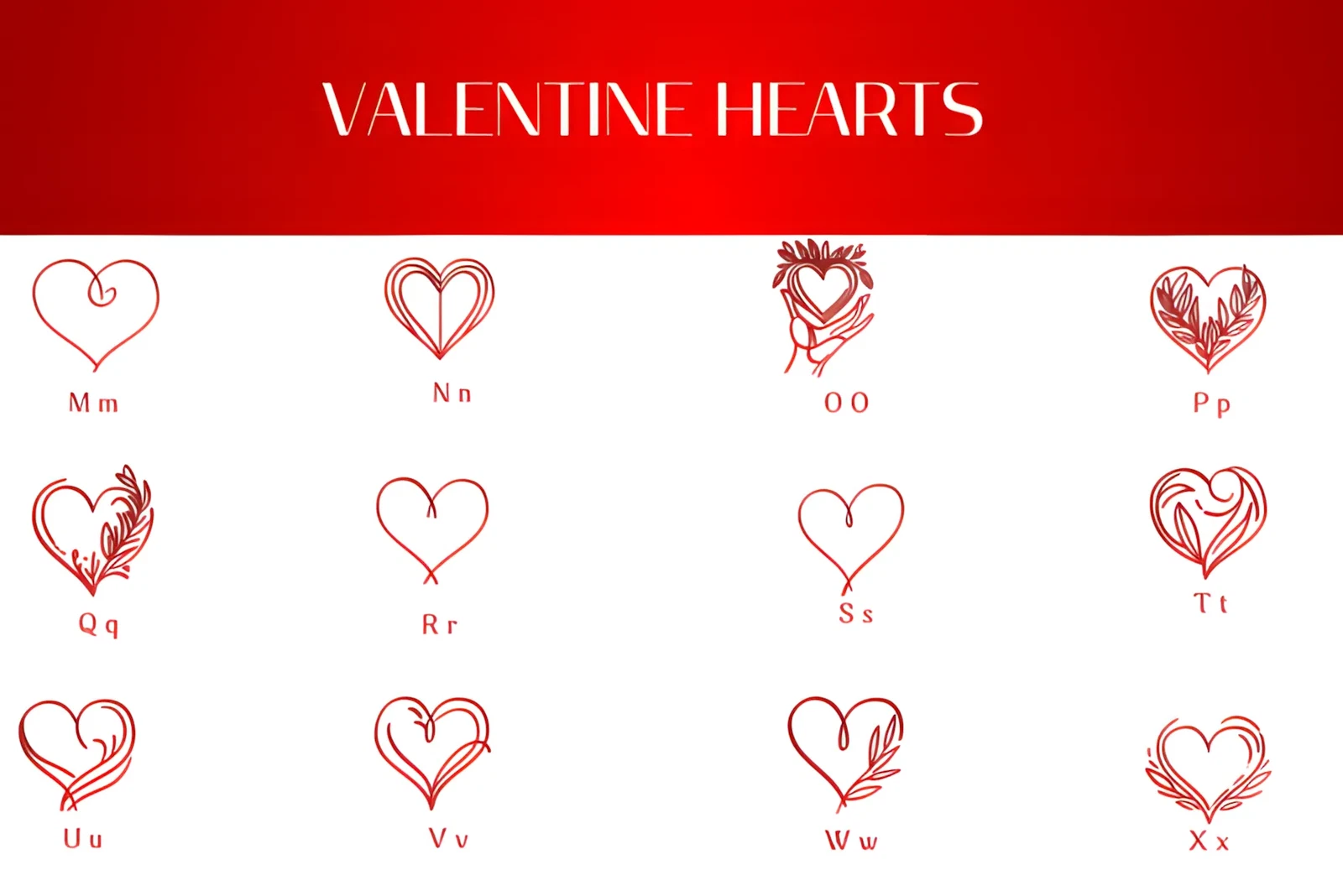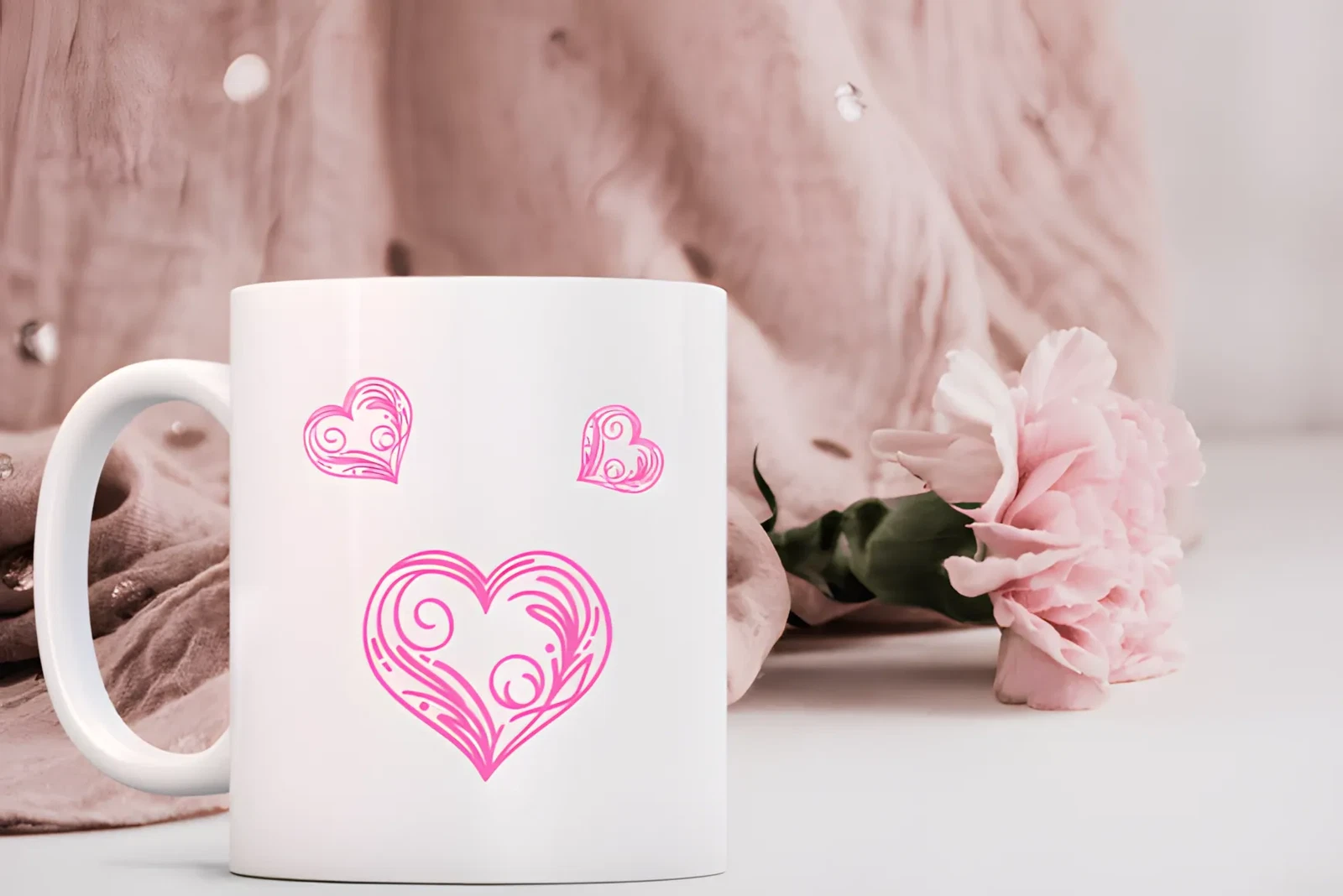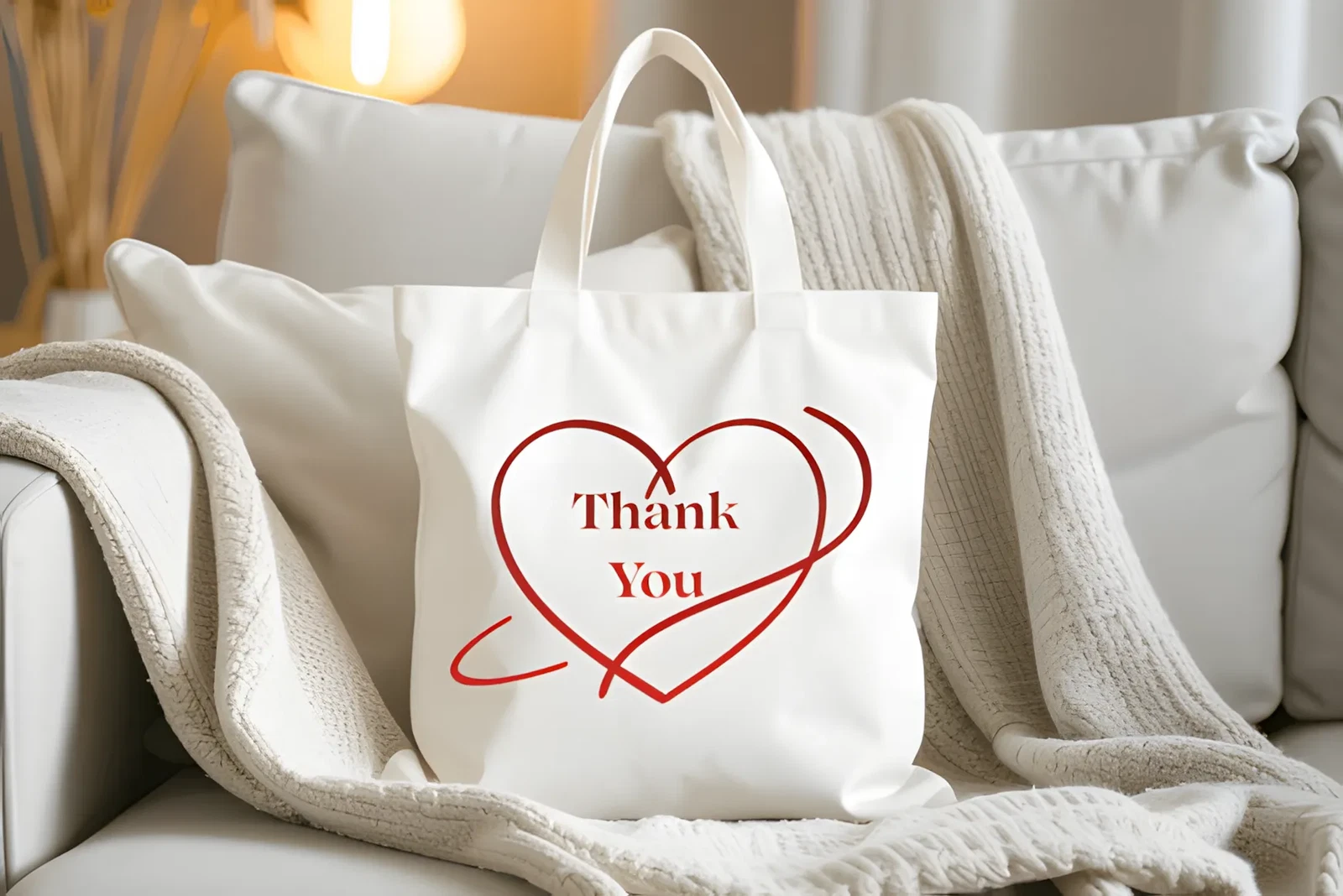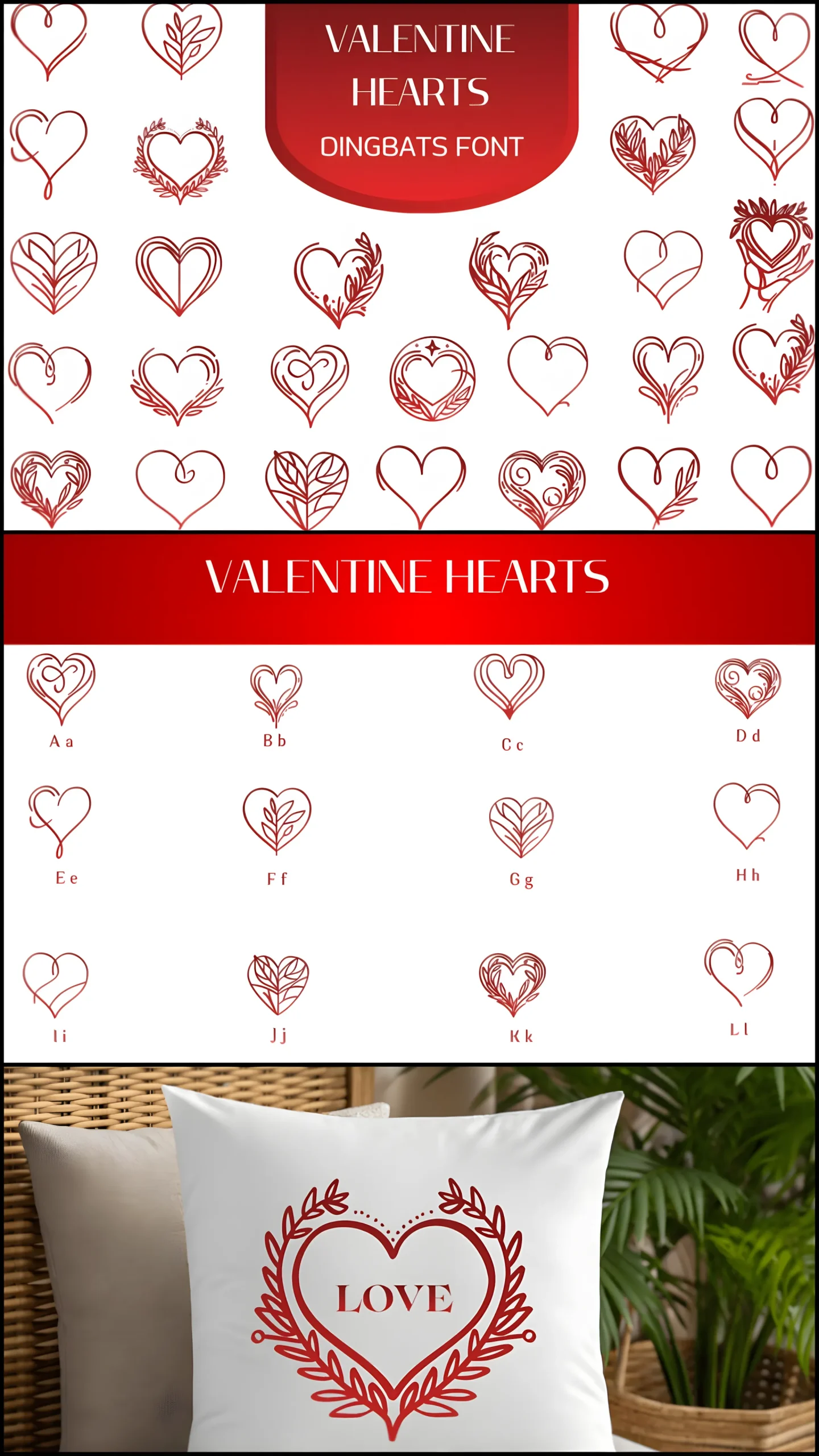
Some fonts are made to communicate with words, while others speak through symbols. Valentine Hearts Font belongs to the second type. This is a decorative dingbats font built entirely around heart illustrations, designed to add warmth, romance, and visual charm to creative projects.
Instead of traditional letters, the font offers a wide collection of heart shapes in different styles. Each glyph works as a small illustration, allowing designers to decorate layouts with love-themed elements without needing separate graphic files.
Visual Style and First Impression
Valentine Hearts Font feels soft, romantic, and expressive from the first glance. The heart illustrations are hand-drawn and slightly whimsical, giving them a friendly and personal feel rather than a rigid or geometric look.
Some hearts appear simple and minimal, while others include decorative lines, textures, or ornamental details. This variation makes the font versatile and visually interesting, even when multiple symbols are used together.
The overall impression is sweet, cozy, and emotionally warm — ideal for romantic and affectionate designs.
A Dingbats Font Built Around Heart Symbols
This typeface is designed as a dingbats font, meaning each character represents a symbol instead of a letter. In this case, every glyph is a heart illustration, mapped to standard keyboard characters.
Because of this structure, the font is easy to use in any design software. Hearts can be typed directly into text fields and treated like text elements, while visually functioning as icons or illustrations.
The consistent hand-drawn style across all glyphs ensures that designs feel cohesive rather than random.
Designed for Love and Romantic Themes
Valentine Hearts Font is clearly created for love-related projects. It works especially well in designs connected to:
- Valentine’s Day
- romance and relationships
- weddings and anniversaries
- affectionate messages
The heart symbols instantly communicate emotion, making the font effective even when used sparingly.
Practical Design Applications
Greeting Cards and Invitations
One of the strongest uses for Valentine Hearts Font is greeting card design. The heart illustrations add personality and charm, helping messages feel heartfelt and personal.
It works perfectly for:
- Valentine’s Day cards
- wedding invitations
- anniversary cards
- romantic notes
Because the font already provides decorative elements, designs can stay clean and minimal.
Social Media and Digital Content
On digital platforms, heart icons are instantly recognizable and emotionally engaging. This font works well for:
- social media posts
- story graphics
- blog visuals
- digital banners
The hand-drawn style helps content feel more personal and less generic.
Journals, Planners, and Notes
Valentine Hearts Font is also a great fit for personal projects. The symbols can be used as decorative markers or visual accents in:
- journals
- diaries
- planners
- notebooks
Hearts can highlight important notes, decorate pages, or simply add a touch of warmth to everyday writing.
Apparel, Gifts, and Craft Projects
The font is compatible with Cricut, Silhouette, and other cutting machines, making it suitable for crafting and physical products.
It works well for:
- t-shirts
- mugs
- tote bags
- stickers
- decals
The clean outlines ensure good cutting and printing results, even at smaller sizes.
Readability and Usage Notes
Valentine Hearts Font is not designed for typing text. It should be used as:
- decorative symbols
- visual accents
- icon-style elements
Each heart works best when treated like an illustration. Giving the symbols enough space helps preserve clarity and visual balance, especially when combining multiple hearts in one design.
Emotional Tone and Design Feel
The emotional tone of Valentine Hearts Font is gentle, romantic, and affectionate. It feels sweet rather than dramatic and warm rather than formal.
This makes it ideal for designs that aim to express:
- love
- care
- romance
- emotional connection
The font naturally creates a positive, loving atmosphere without overpowering the message.
It is not intended for body text, but as a decorative dingbats font, it performs exactly as designed.
Valentine Hearts Font turns simple heart symbols into a flexible design toolkit. With its hand-drawn charm and wide variety of heart illustrations, it allows designers to express emotion visually without relying on words.
For projects that need to feel warm, romantic, and personal, this font offers a simple yet expressive solution. Used thoughtfully, Valentine Hearts Font adds softness and emotional depth to designs centered around love and connection.